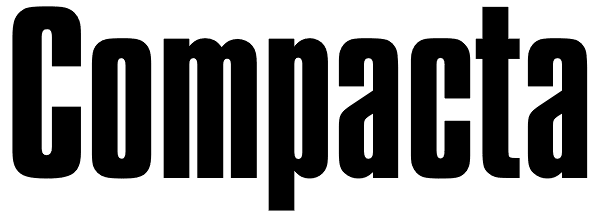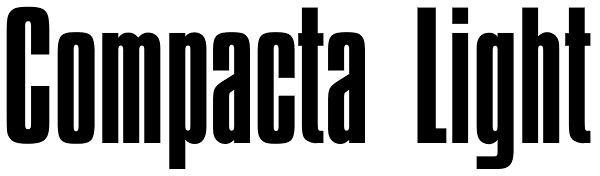
Compacta
Compacta is the work of Fred Lambert and is reminiscent of the extremely narrow, sans serif stencilled fonts of the 1920s, then intended as titles or headlines for magazines and posters. The characters of all cuts are narrow and the space between...